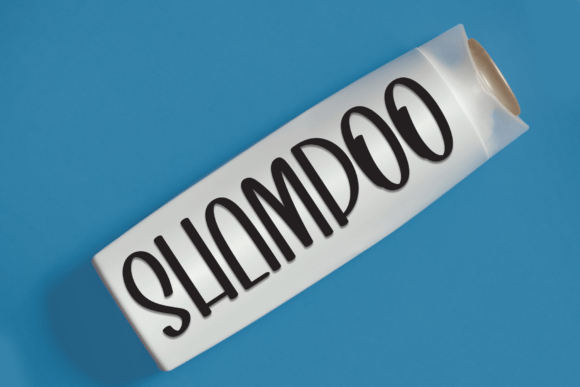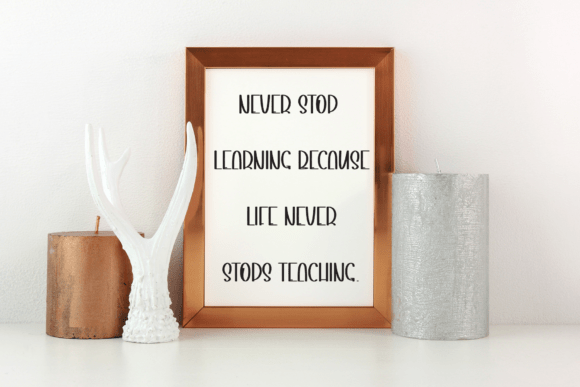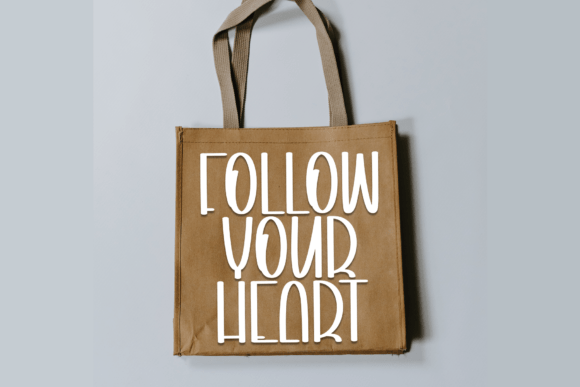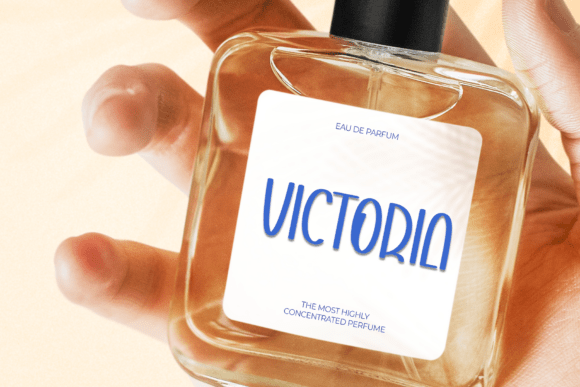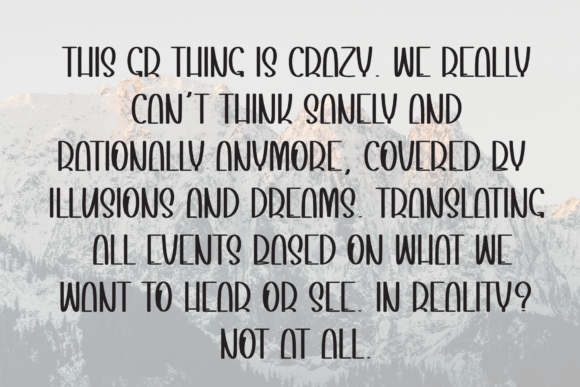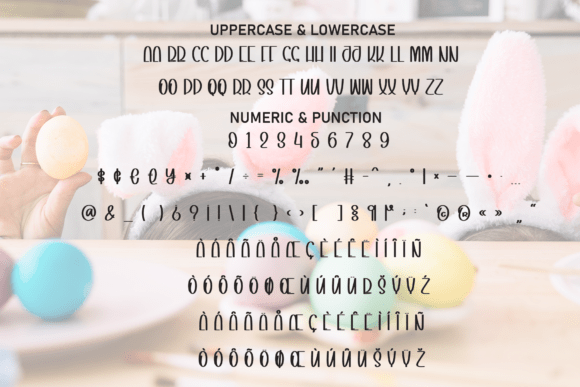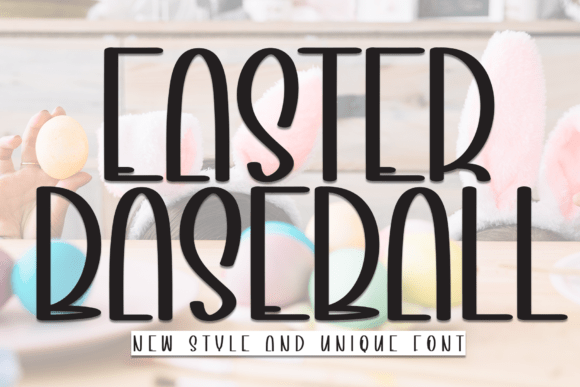
Easter Baseball Font: The Perfect Addition to Your Design Arsenal
Are you a designer or crafter looking for a font that can add a fresh and friendly vibe to your projects? Look no further than the Easter Baseball font. This casual and neat display font is perfect for a variety of design applications, from packaging and posters to social media graphics and more.
Clean Lines and Relaxed Structure
One of the standout features of the Easter Baseball font is its clean lines and relaxed structure. This font is designed to be easy to read and understand, making it perfect for use in a variety of contexts. Whether you’re creating a poster for a local event or designing a label for a product, the Easter Baseball font is sure to make a great impression.
Perfect for Packaging, Posters, and Social Media Graphics
The Easter Baseball font is incredibly versatile, making it perfect for use in a variety of design applications. Here are just a few ideas for how you can use this font:
• Packaging: Add a personal touch to your product packaging with the Easter Baseball font. This font is perfect for labels, tags, and other packaging materials.
• Posters: Create eye-catching posters for events, promotions, and more with the Easter Baseball font. This font is sure to grab attention and make a lasting impression.
• Social Media Graphics: Use the Easter Baseball font to create engaging social media graphics that will help you stand out from the crowd. This font is perfect for creating custom graphics for Facebook, Instagram, Twitter, and more.
Approachable Design Adds Charm and Clarity
The Easter Baseball font has an approachable design that adds charm and clarity to any project. This font is perfect for designers and crafters who want to create projects that are friendly and inviting. The Easter Baseball font is sure to make your projects feel more approachable and engaging, which can help to build a stronger connection with your audience.
Polished Appearance
One of the best things about the Easter Baseball font is its polished appearance. This font is designed to look great in a variety of contexts, from digital displays to print materials. The Easter Baseball font has a professional look and feel that is sure to make your projects stand out.
Why Choose the Easter Baseball Font?
So why should you choose the Easter Baseball font for your next project? Here are just a few reasons:
• Unique and eye-catching: The Easter Baseball font is a unique and eye-catching font that is sure to grab attention.
• Versatile: This font is incredibly versatile and can be used in a variety of design applications.
• Easy to read: The Easter Baseball font is easy to read and understand, making it perfect for use in a variety of contexts.
• Polished appearance: This font has a polished appearance that is sure to make your projects look professional.
Tips for Using the Easter Baseball Font
Here are a few tips for using the Easter Baseball font in your next project:
• Use it as a display font: The Easter Baseball font is perfect for use as a display font. Use it to add a title or heading to your project.
• Pair it with other fonts: The Easter Baseball font pairs well with a variety of other fonts. Try pairing it with a sans-serif font for a clean and modern look.
• Experiment with colors: The Easter Baseball font looks great in a variety of colors. Experiment with different colors to find the one that works best for your project.
The Easter Baseball font is a great addition to any design arsenal. With its clean lines, relaxed structure, and polished appearance, this font is perfect for a variety of design applications. Whether you’re a designer or crafter, the Easter Baseball font is sure to make your projects stand out. So why not give it a try and see the difference it can make?